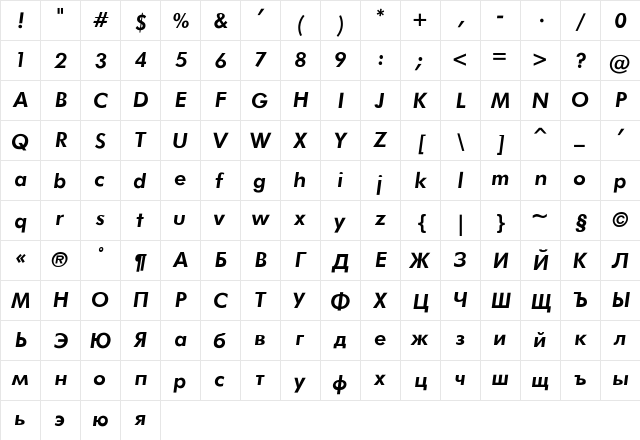
Futura_Book-Bold-Italic Regular
Design Context for Futura_Book-Bold-Italic Typeface
Futura_Book-Bold-Italic channels digital-age aesthetics through its sharp, structured letterforms — ideal for brands that want to signal innovation. The slanted form adds forward momentum and visual energy. The heavy weight commands attention and anchors typographic hierarchies.